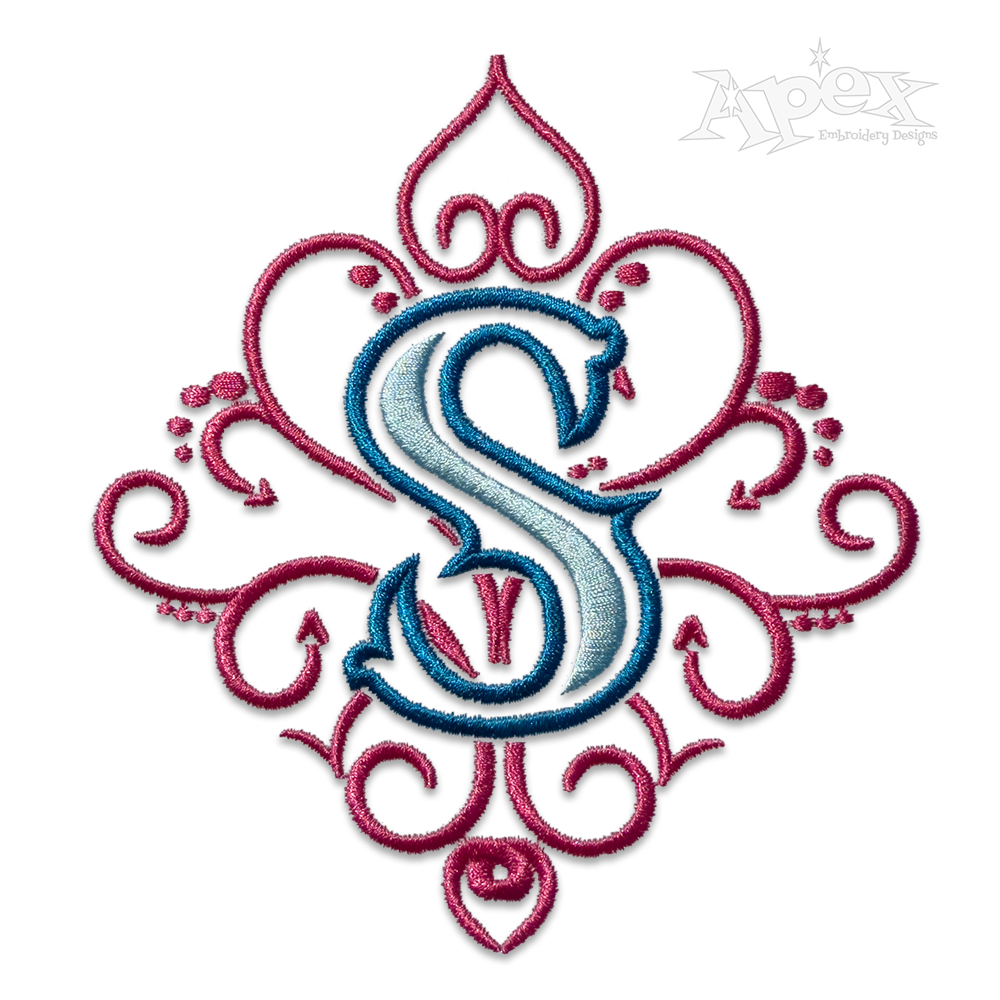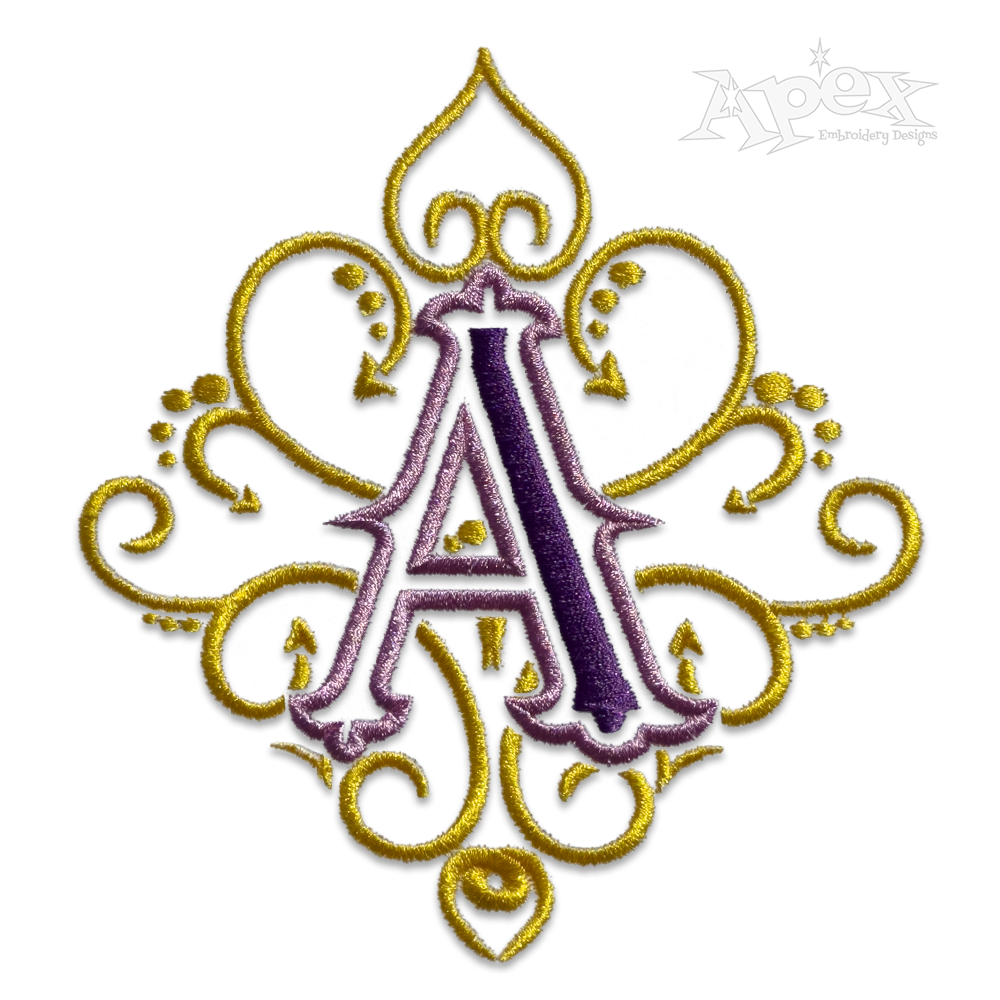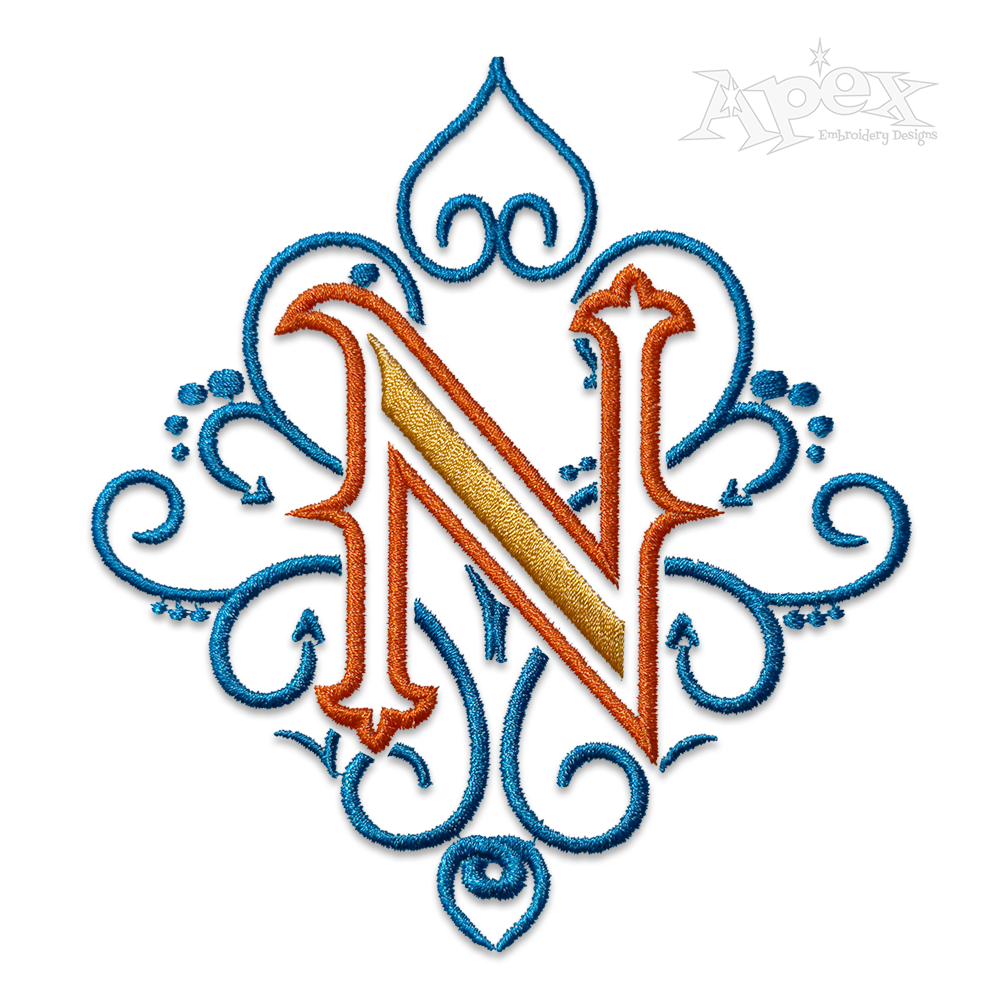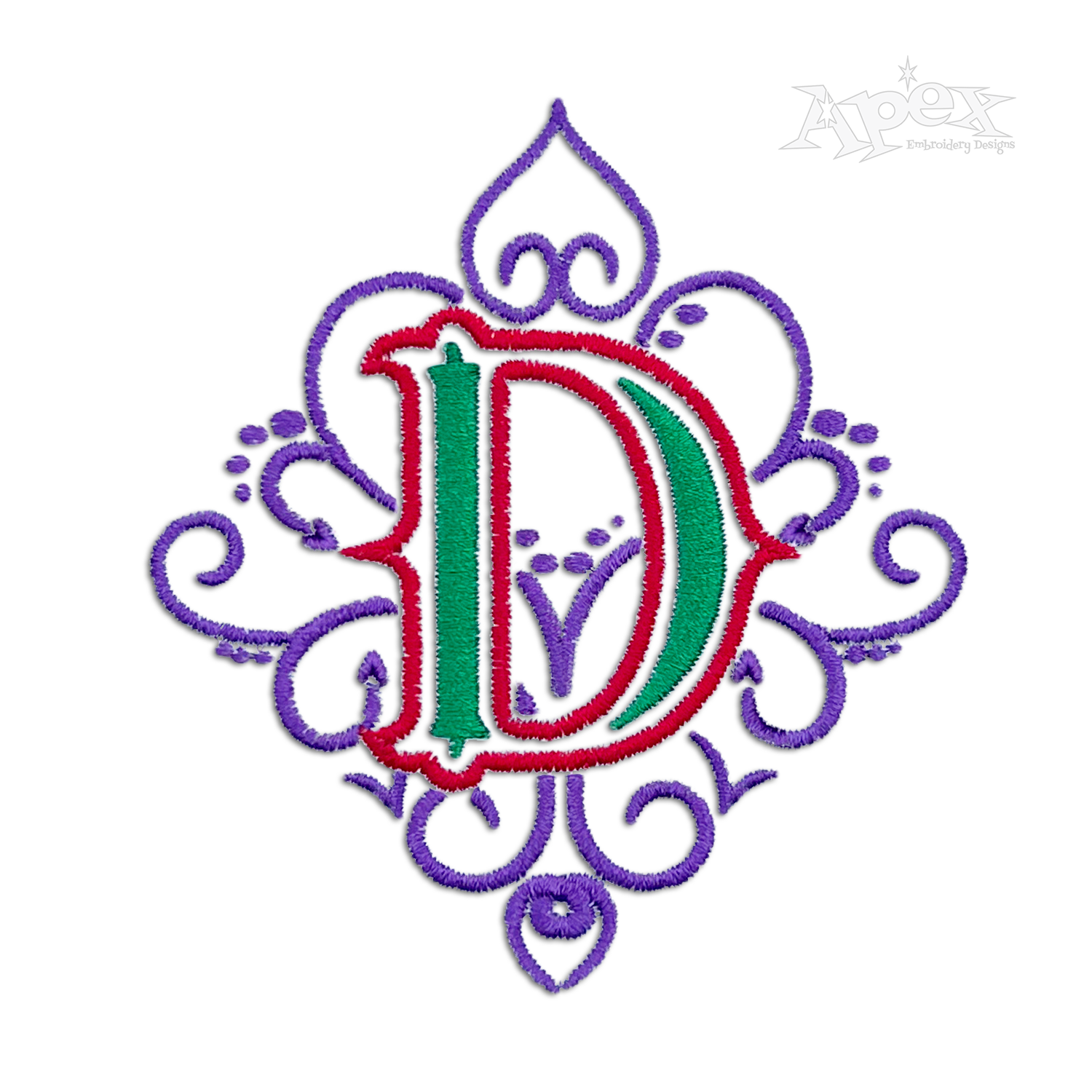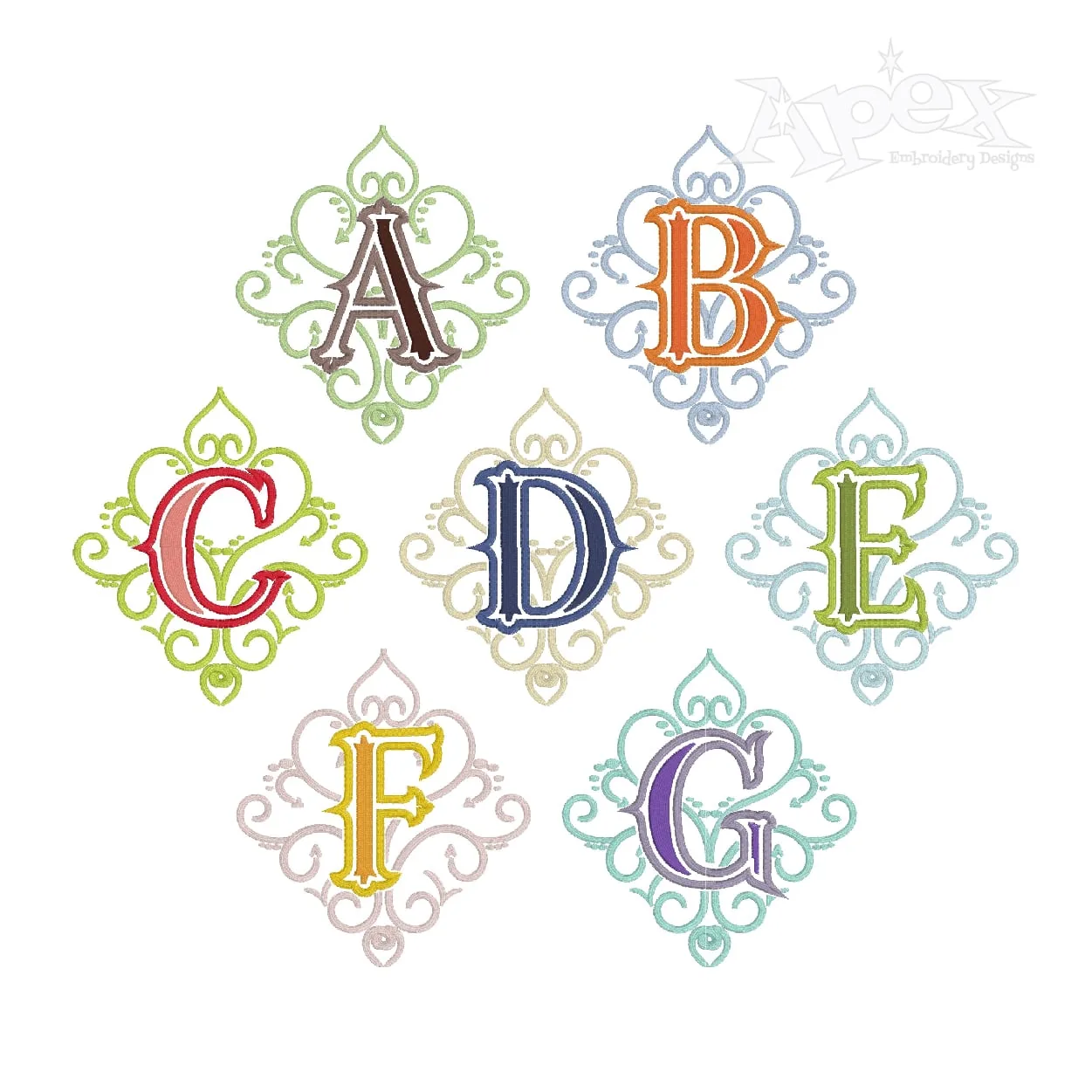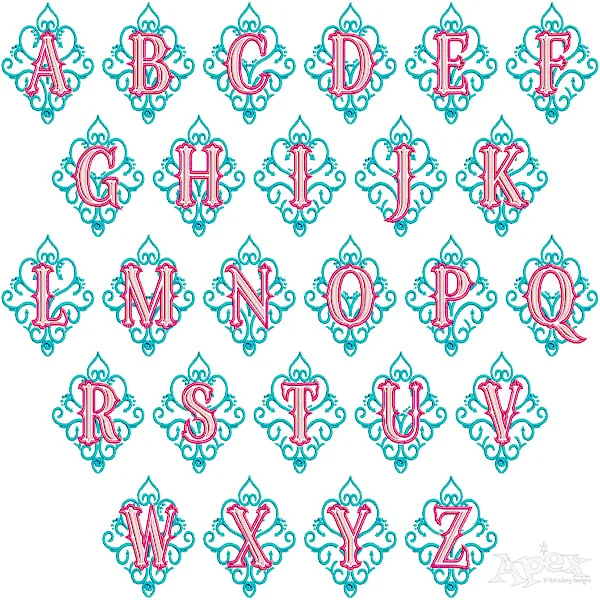
Bordeaux Embroidery Font
Imbued with the timeless grandeur of French provincial estates and the storied cellars of southwestern France, the Bordeaux Embroidery Font was digitized to bring rich, dimensional sophistication to every stitch. Inspired by neoclassical architectural ironwork and vintage Parisian typography, each letterform balances bold presence with graceful, flowing flourishes. Designed with layered color transitions that allow contrasting or tonal threads to interplay effortlessly, this bespoke monogram alphabet transforms ordinary textiles into heirloom treasures, capturing an opulent spirit that feels both historically rooted and tailored for modern luxury.
Project Ideas for Bordeaux Embroidery Font
With its substantial letterforms and layered color options, this alphabet lends dramatic refinement to a wide array of personalized gifting and home décor items:
- Plush Terry Bath Sheets & Guest Towels: Stitch a dramatic 5-inch single initial monogram in rich metallic and neutral tones to recreate five-star resort elegance at home.
- Heirloom Bedding & Linen Shams: Frame the master suite by centering 4-inch embroidered letters onto crisp percale duvet covers or Euro pillow shams.
- Heavyweight Canvas Totes & Weekenders: Create high-end bespoke resort wear and travel accessories with resilient two- or three-color combinations that pop against heavy canvas or sailcloth.
- Bespoke Bridal Robes & Keepsakes: Use soft ivory and champagne threads to fashion personalized bridal trousseau loungewear, satin robes, or keepsake garment bags.
- Luxury Table Linens & Cocktail Napkins: Position 3-inch monograms across mitered-corner linen napkins for festive dinner parties and unforgettable wedding gifts.
To maximize the dimensional drama of the Bordeaux letterforms, consider these tailored placement guidelines:
- Corner Diagonal on Table Linens: Set the 3-inch initial at a precise 45-degree angle, inset 1.5 to 2 inches from the hemstitched edge for an authentic European bistro finish.
- Center Band on Bath Linens: Center 4-inch or 5-inch letters roughly 1.5 inches above the woven dobby border on bath towels, allowing the plush terry loops to cradle the dense satin stitches.
- Center Chest & Monogram Crests: For spa robes, fleece jackets, or tailored sweatshirts, center the 4-inch design 3 to 4 inches below the shoulder seam or collar point for natural visual balance.
- Structural Bag Panels: Center a bold 5-inch initial between tote webbing straps to anchor the bag with balanced, architectural symmetry.
Bordeaux Embroidery Font Craft & Letterform Details
Translating an intricate, multi-toned alphabet into an effortless stitch file requires extensive digitizing nuance. The Bordeaux letterforms feature sweeping main stems anchored by confident serifs, complemented by dimensional accent strokes that invite unique color play. Each color segment is engineered with tailored underlay architectures—combining contour runs and perpendicular lattices—to stabilize the base fabric and guarantee that subsequent satin layers lie completely smooth without shifting or gaping.
As the needle moves through each glyph, dynamic angle adjustments follow the natural curvature of the serifs and crossbars. This intentional satin stitch flow catches ambient light across thread fibers, generating an iridescent, sculpted relief. The multi-color design gives you full artistic control: pair high-contrast jewel tones for bold graphic impact, or choose subtle tone-on-tone shades for an understated, engraved finish that feels soft to the touch and enduringly durable.